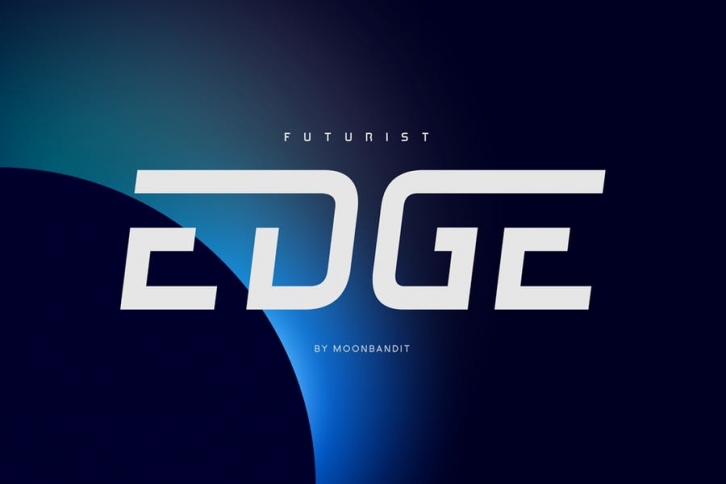
Moonbandit presents a powerful technology scifi theme typeface. modern, clean, strong and sleek. This font comes with a lot of ligatures to try out and emphasize your design. Use this font for poster, headline, title, logo, and many more.